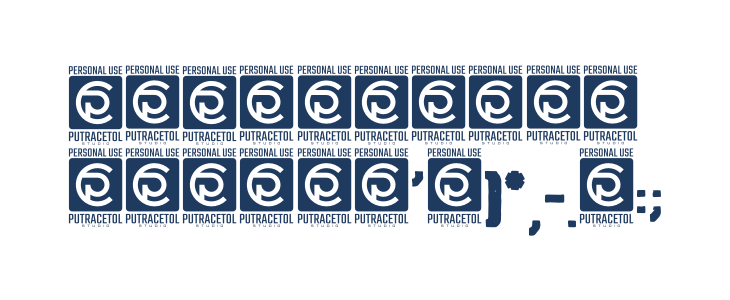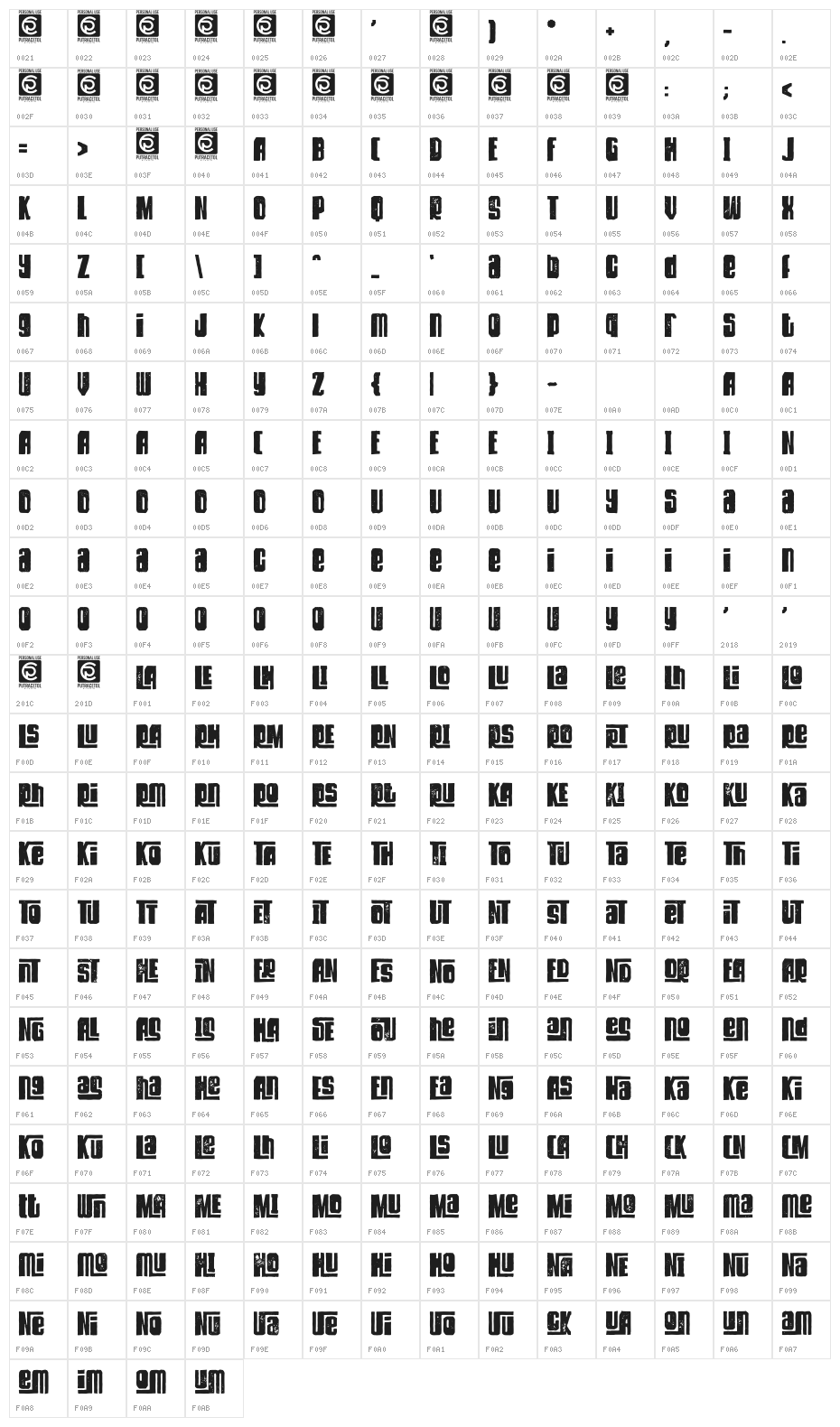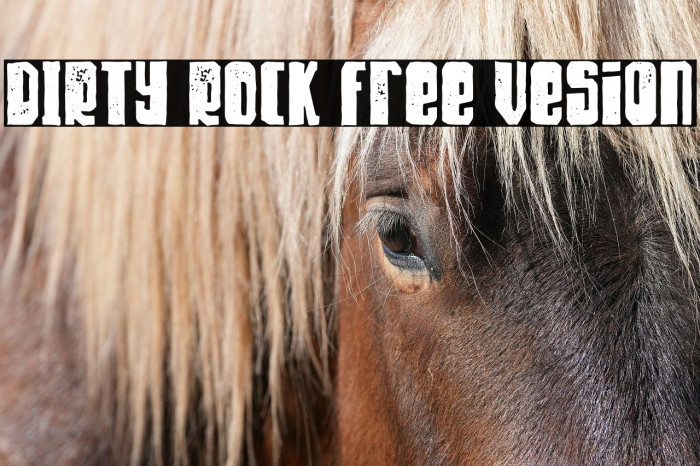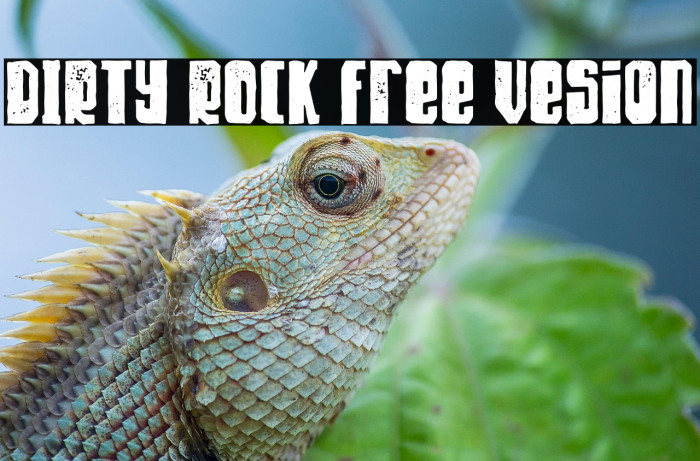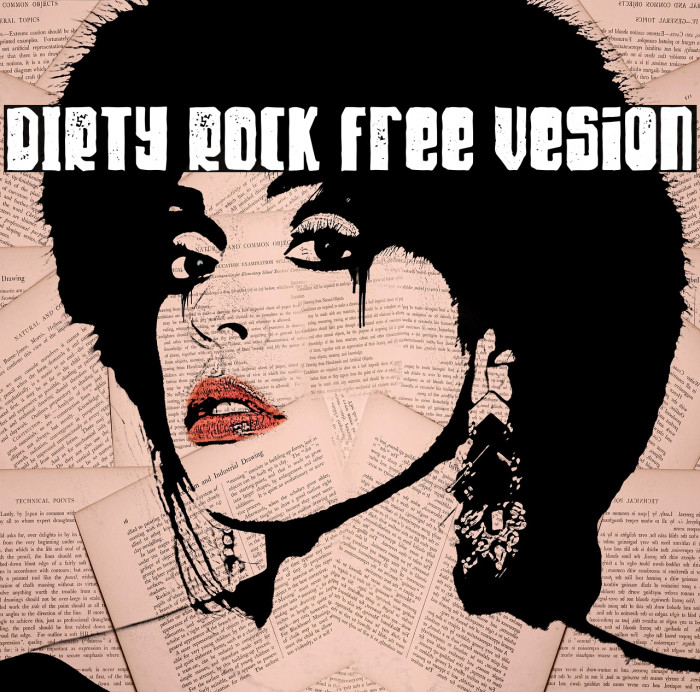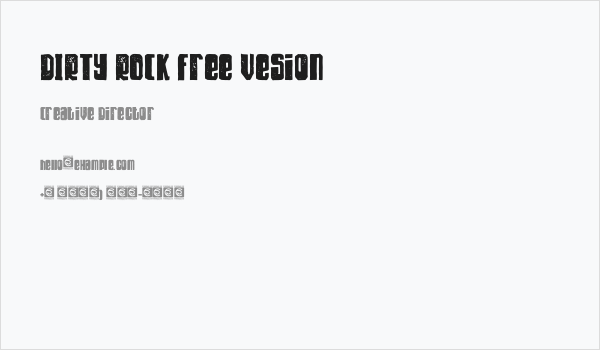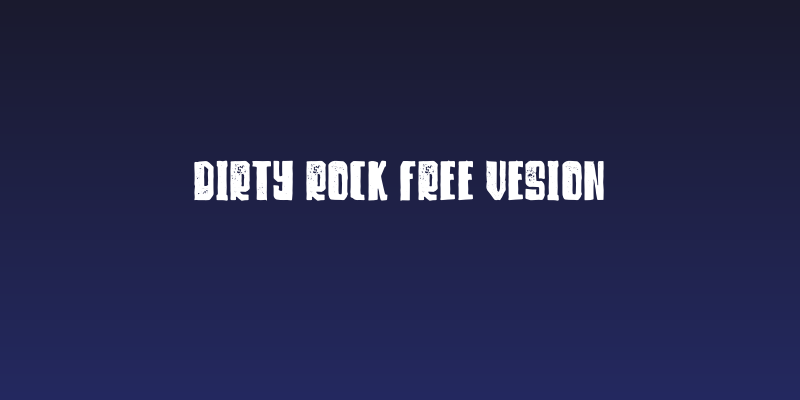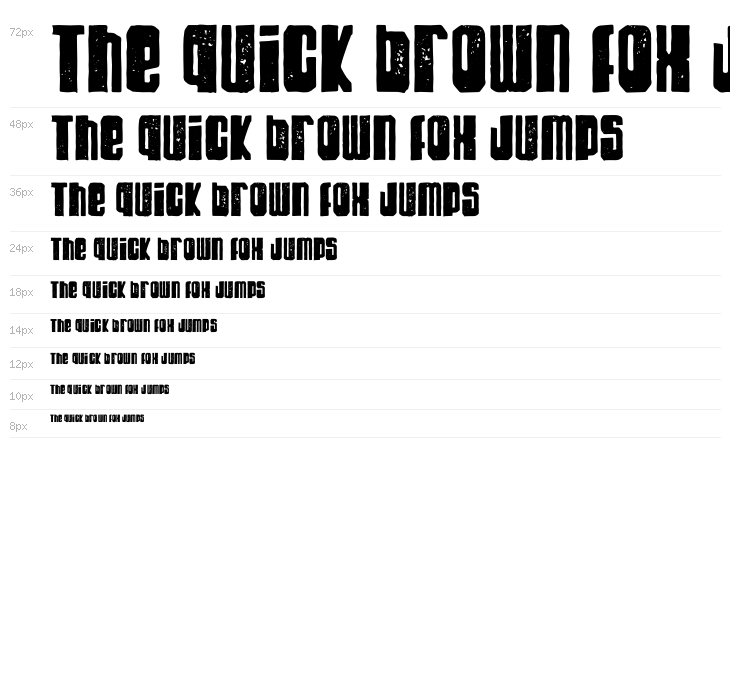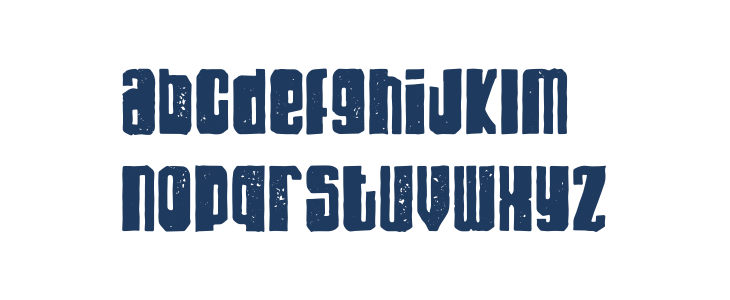
DIRTY ROCK Free Vesion Font
DIRTY ROCK Free Vesion Description
This font features a rugged, distressed style with a bold and impactful presence. The characters are heavily textured, giving them a worn and gritty appearance, reminiscent of rock or grunge aesthetics. The uppercase and lowercase letters maintain a consistent weight, with slight variations in texture that add to the font's dynamic feel. The numbers and special characters follow the same design principles, ensuring a cohesive look across all elements. This font is ideal for projects that require a strong, edgy, and rebellious vibe.